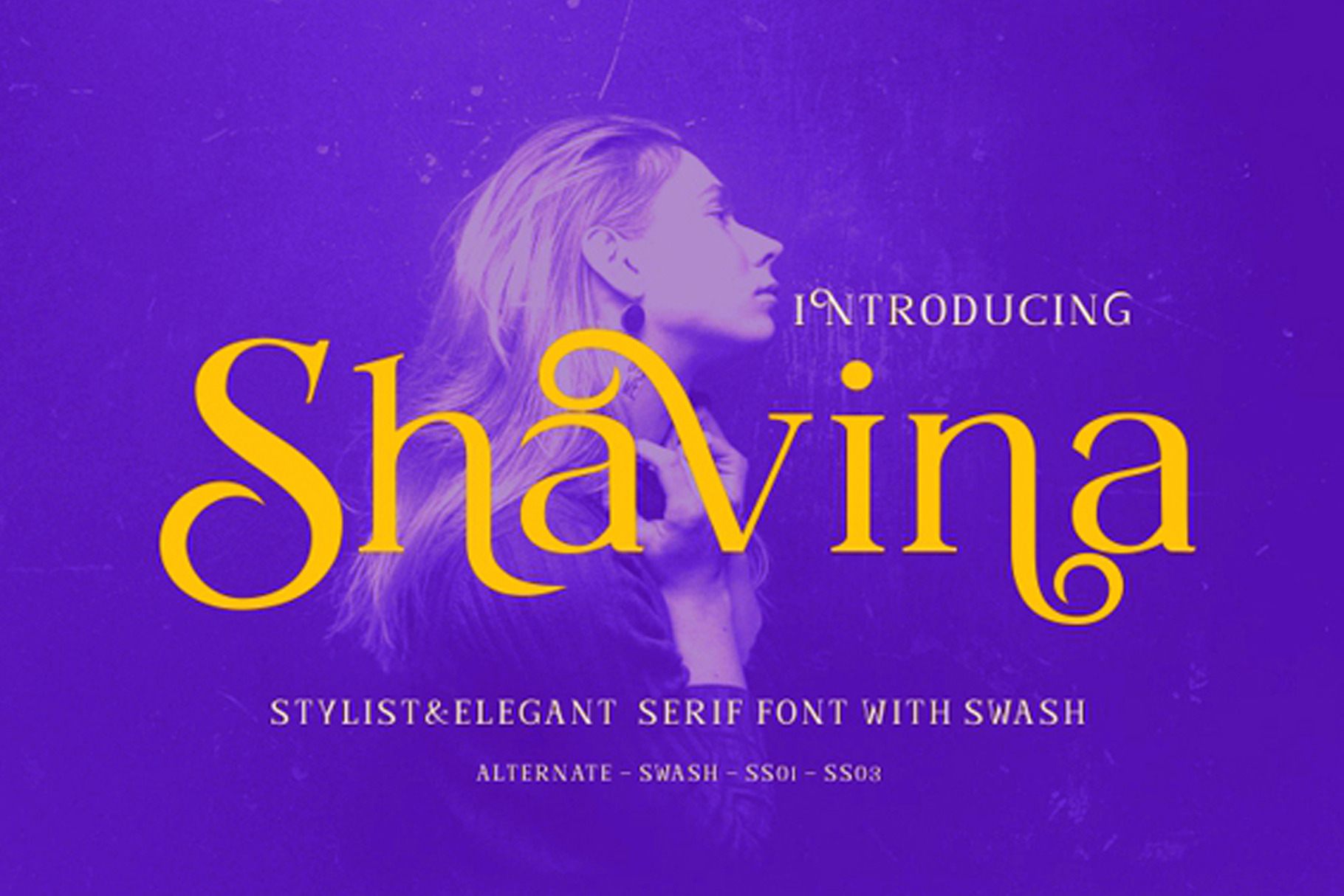
Shavina Serif Font with beauty swash
Shavina Serif Font are fonts that are made with elegant feminine pretty concepts and have alternatives with beautiful swash curves for the purpose of being used as logotypes, text quotes, logo designs for beauty products, and elegance that can also be applied to other property products. font features like:
Opentype Ligature Salt SS01-SS03